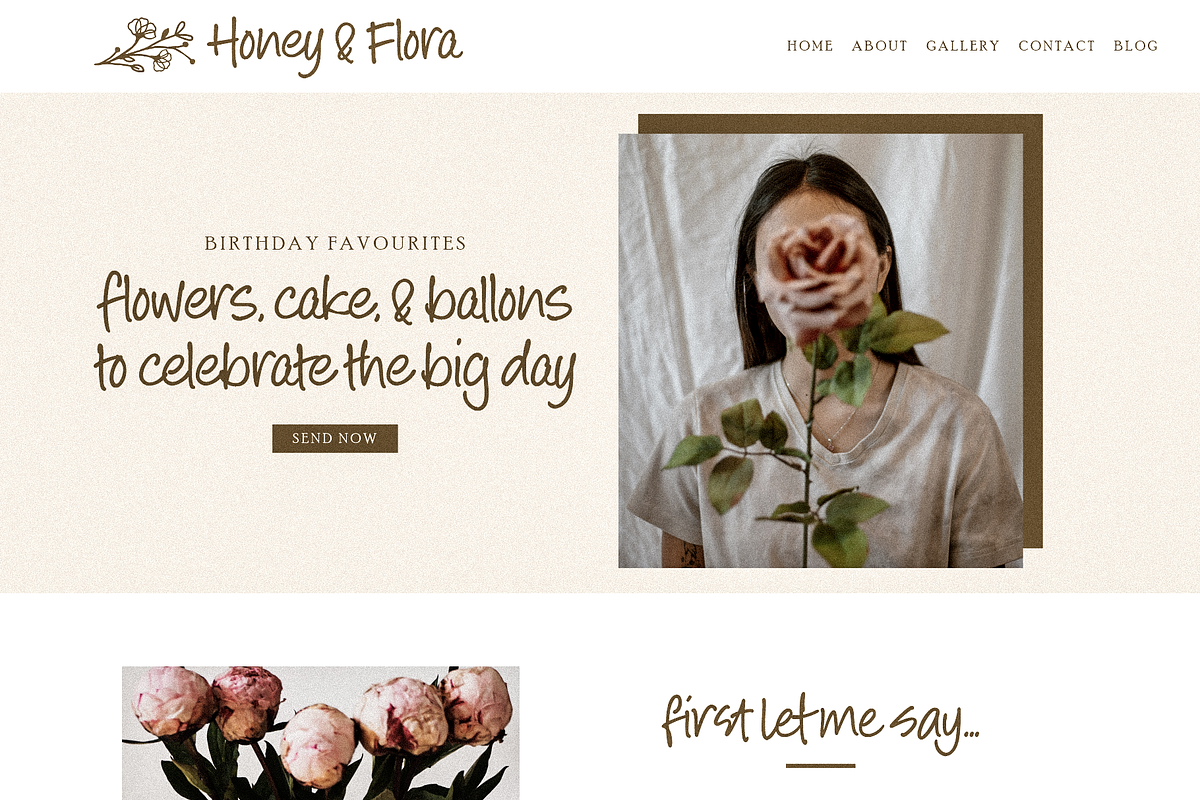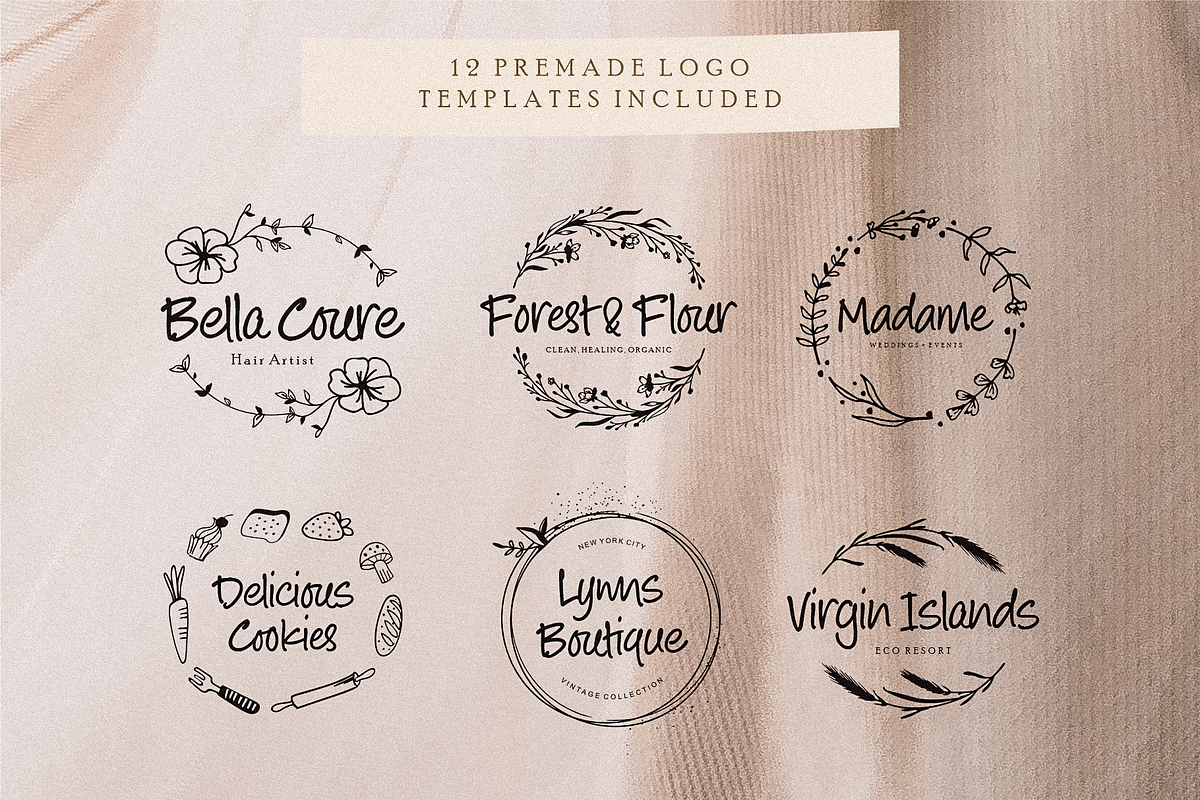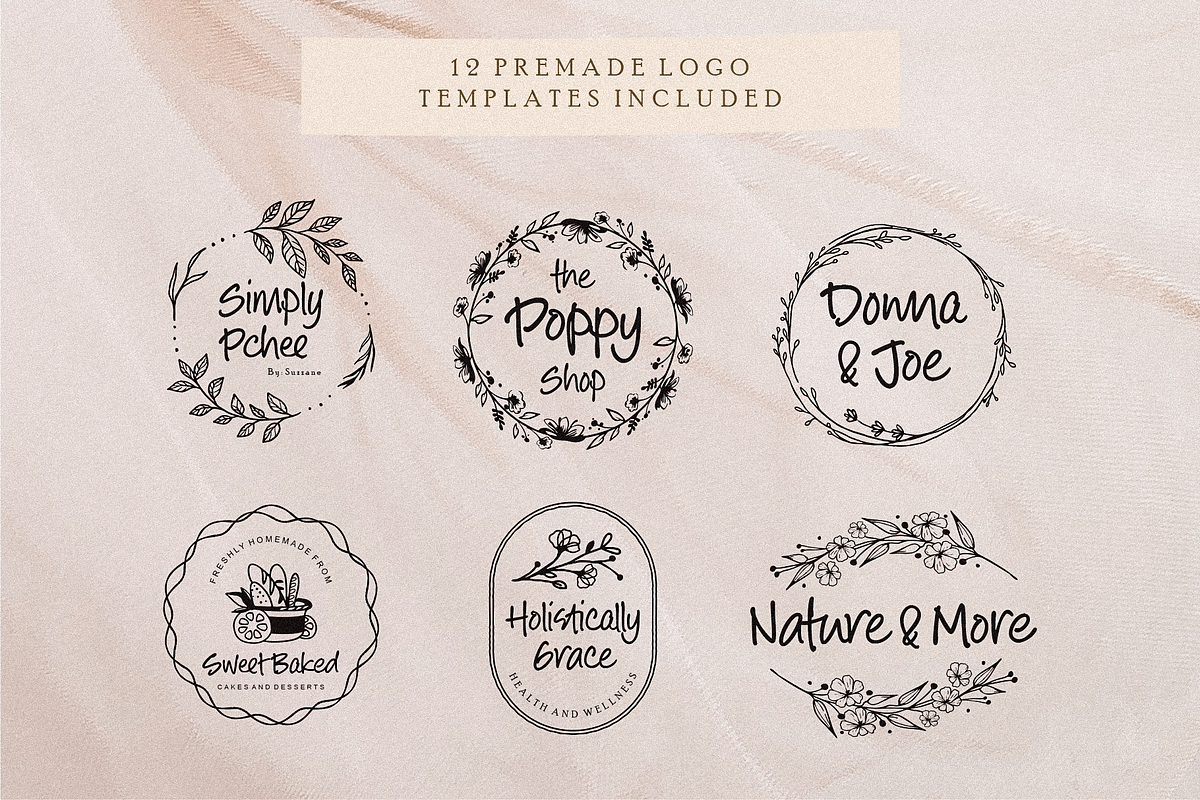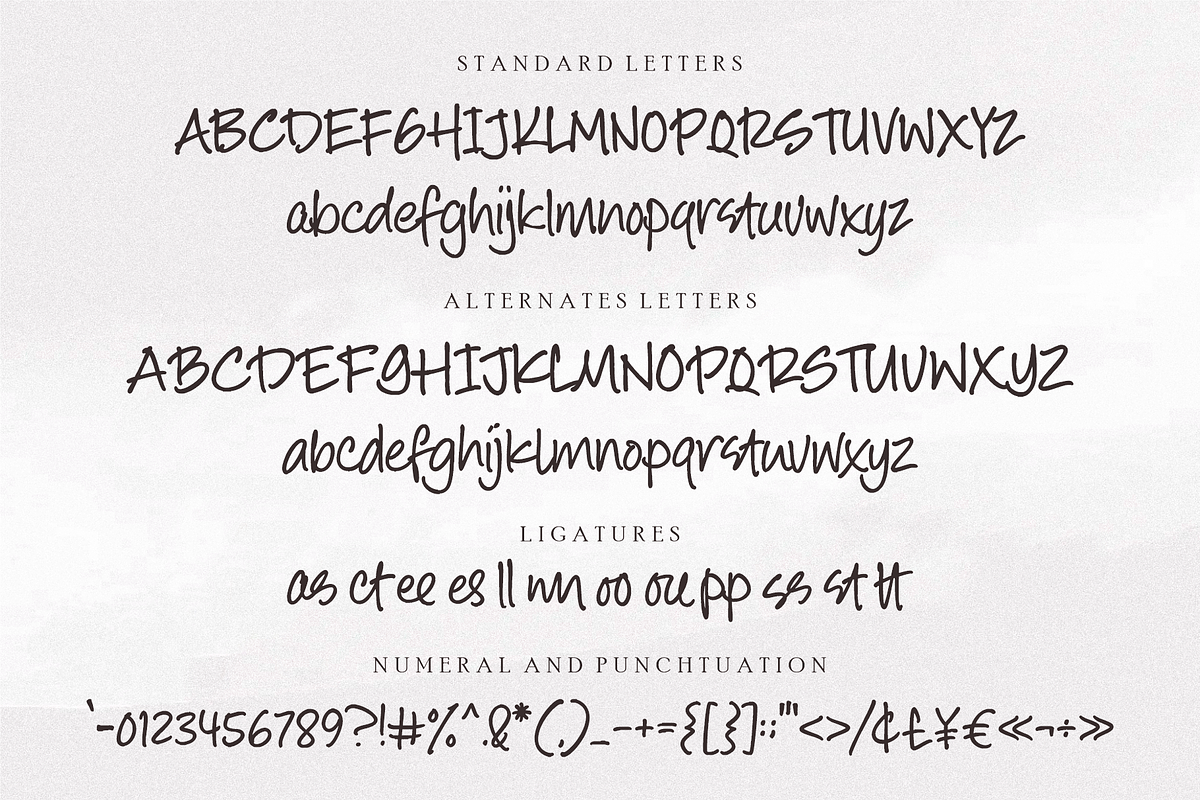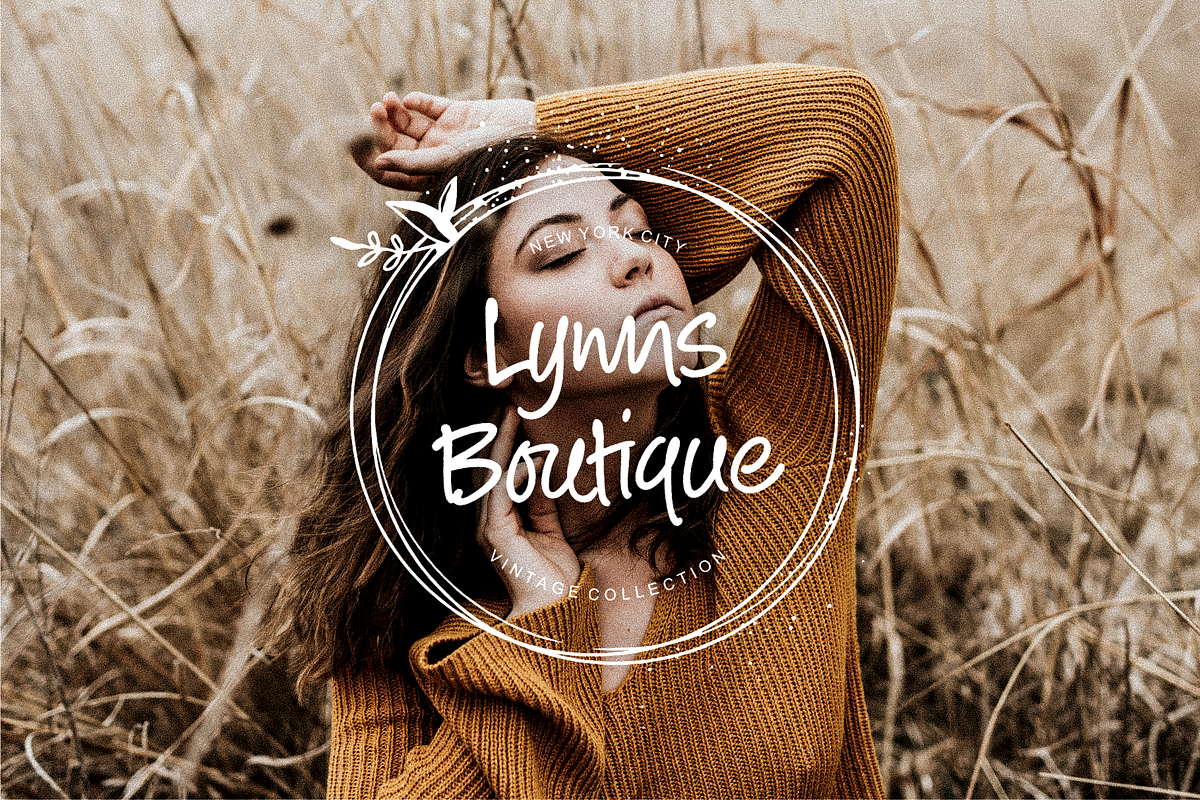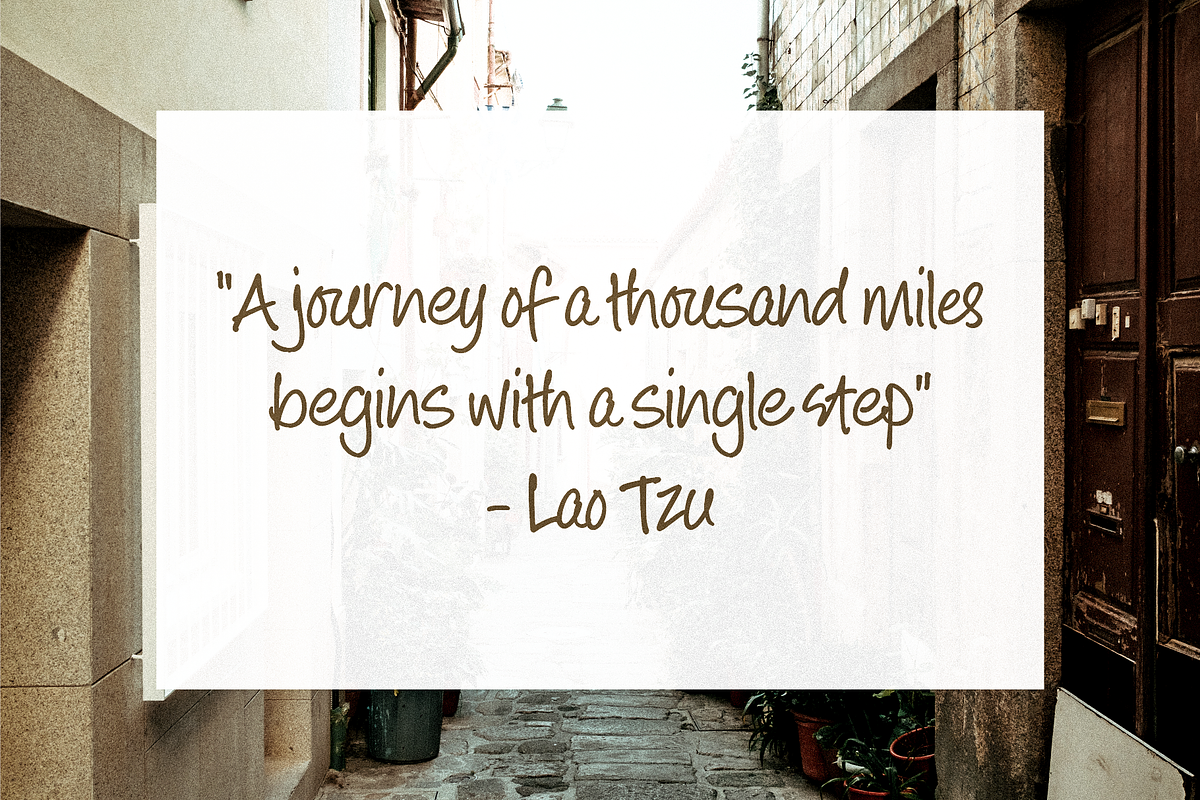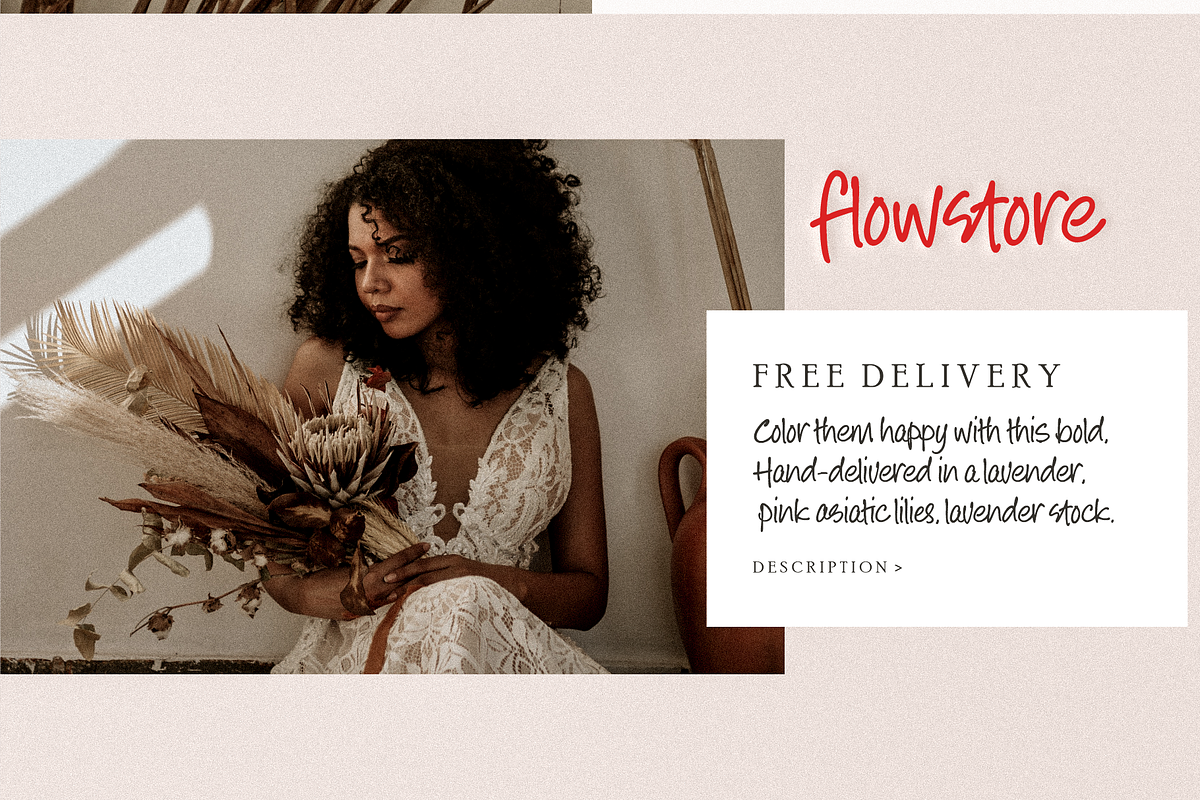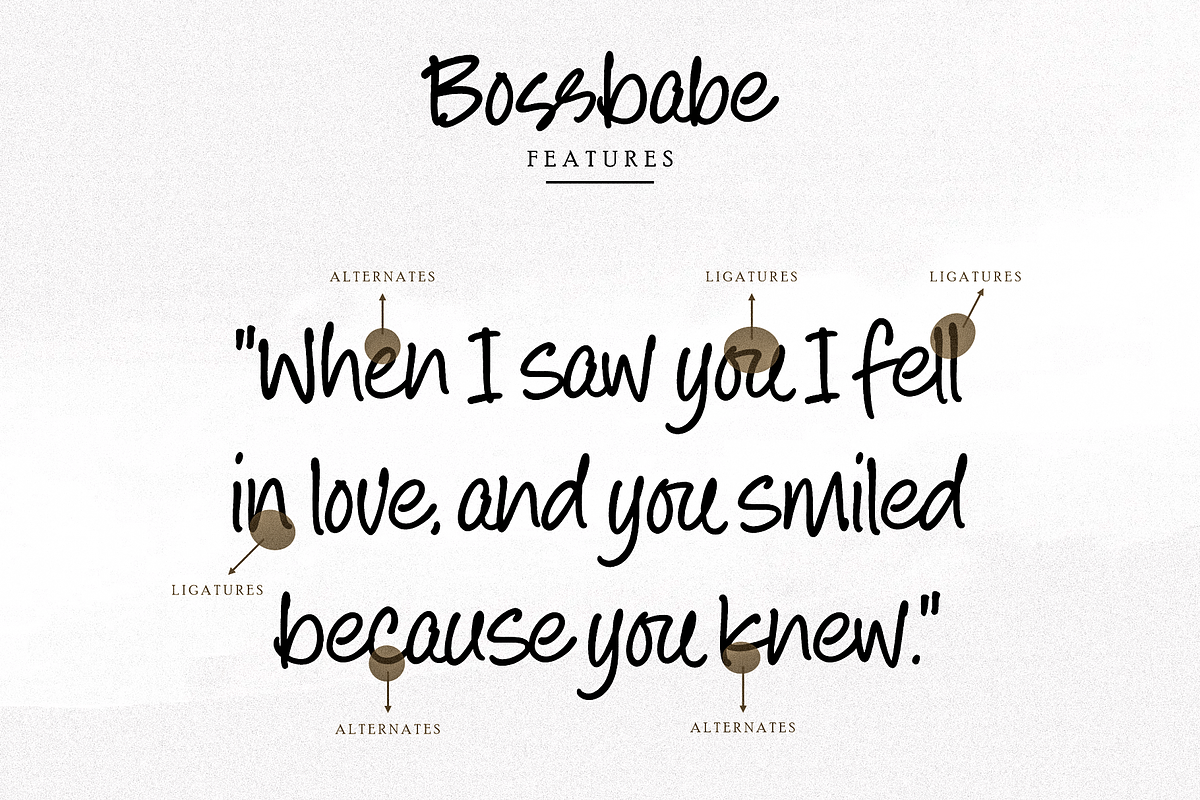
Bossbabe – Modern Calligraphy Fonts
Bossbabe is an elegant and clean font that is perfect for feminine and stylish logos. Bossbabe pack has been specially designed to help you make all of your branding projects stand out from the crowd. With 12 logo templates, and an original handwriting font that breaks into each character giving it a uniquely modern feel. Using a variety of ligatures (uniquely designed letter combinations), and alternative characters in both uppercase and lowercase letters. So what makes it so special? its clean design gives your text the perfect amount of kick.
Bossbabe features:
- A full set of upper & lowercase characters
- A full set of upper & lowercase characters (Alternates)
- Multilingual symbols